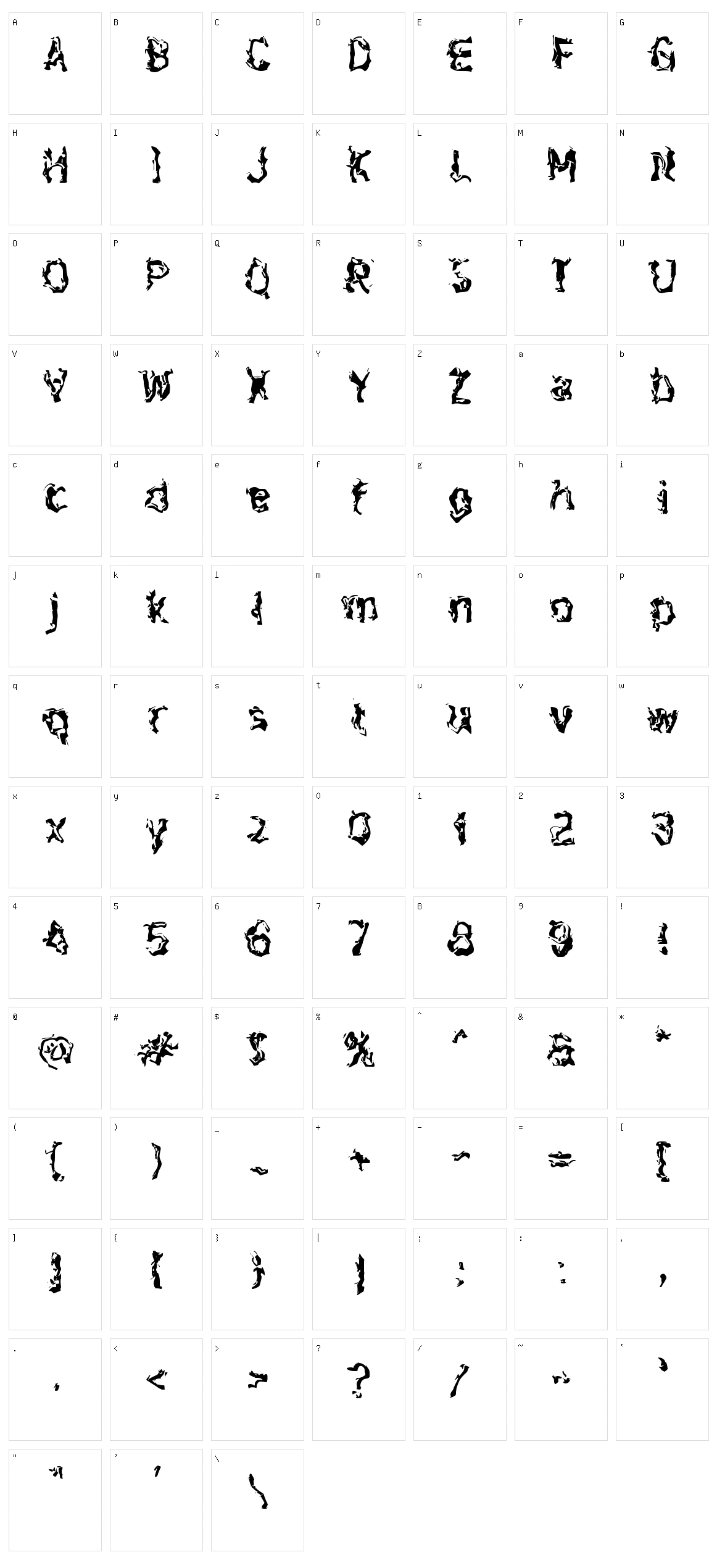
The free font d Dehidrasi is carefully designed by wep, showcasing a thoughtful balance of creativity and usability and falls under the Eroded font style. When you download the ZIP file, it contains only 43.94 KB of font files, making it lightweight and quick to download. Please review the license details below to understand permitted usage and distribution rights. If license information is not available, we recommend using this font for personal projects only or contacting the author directly for commercial usage permissions.